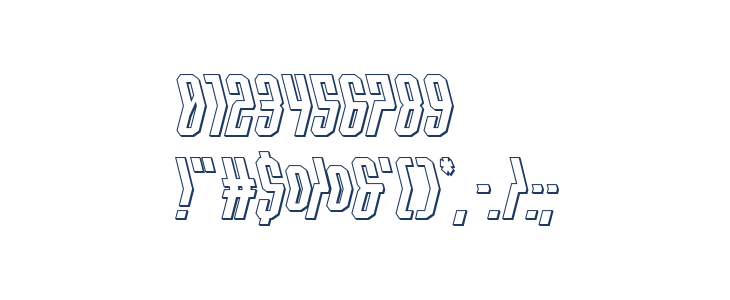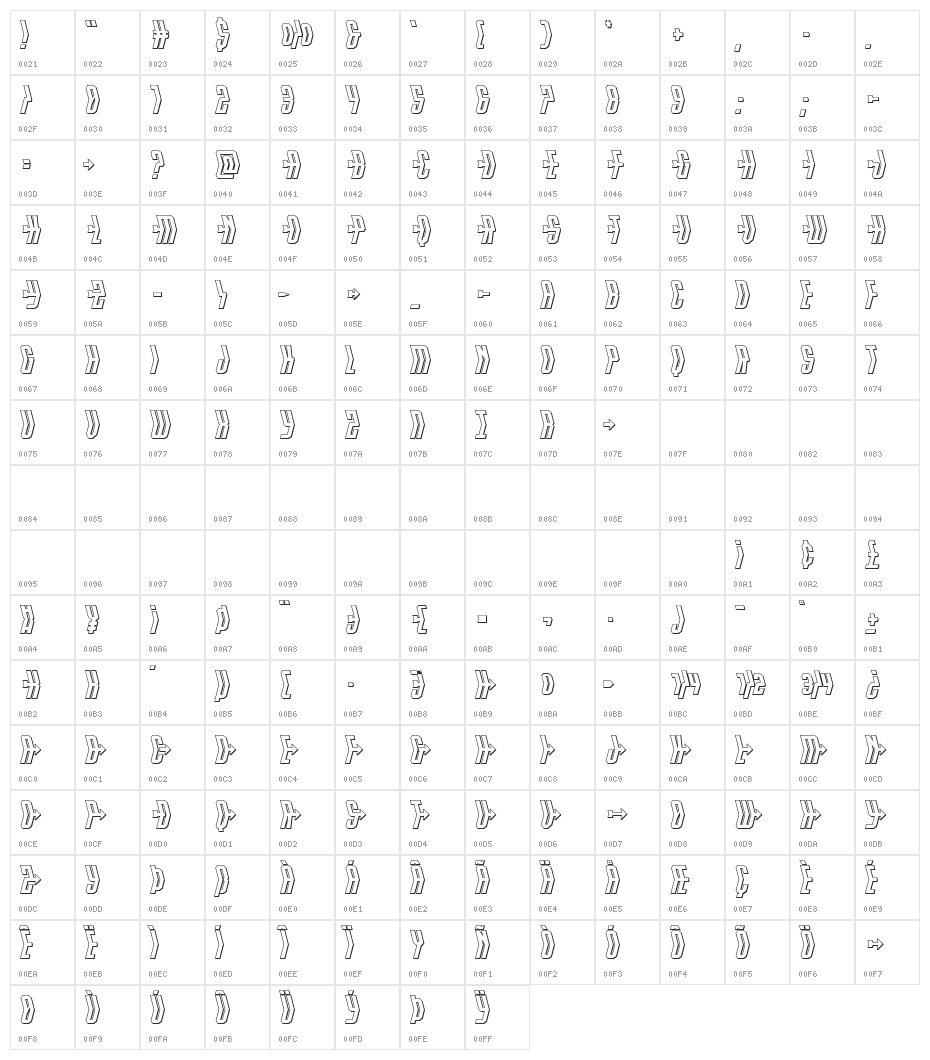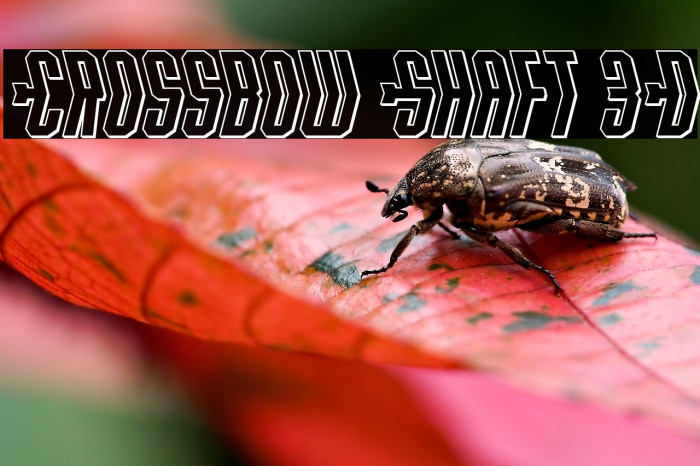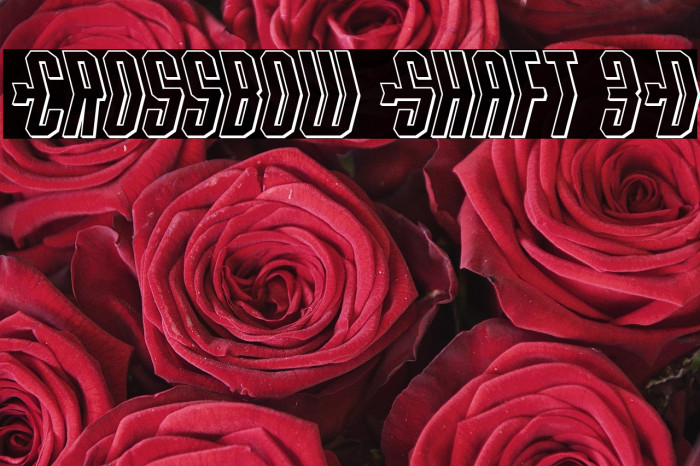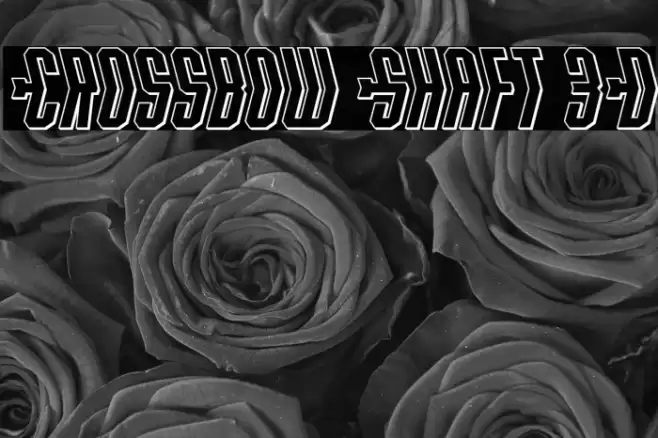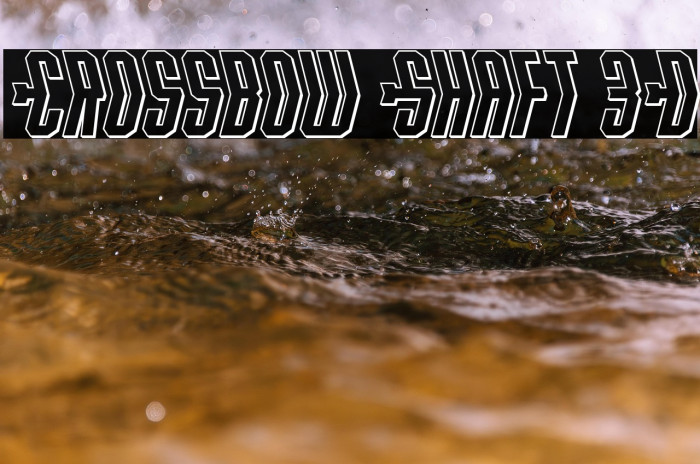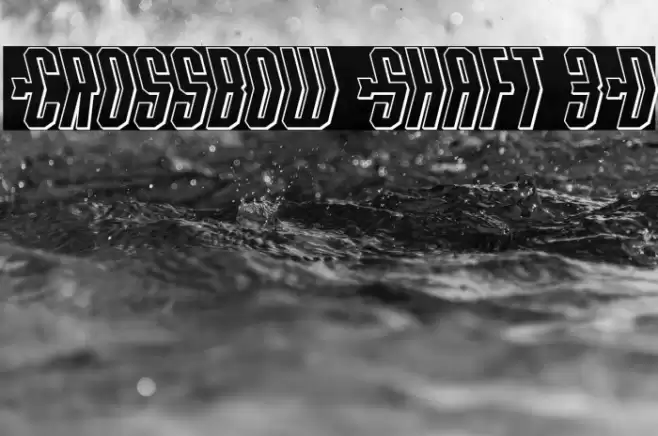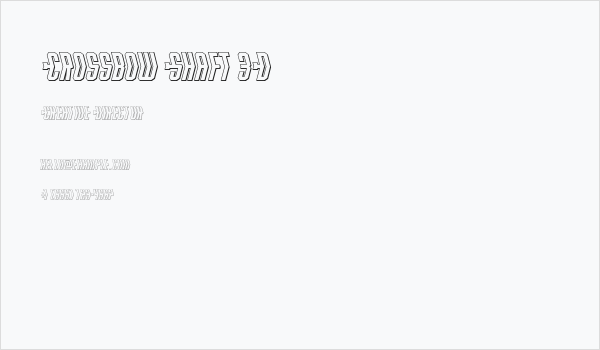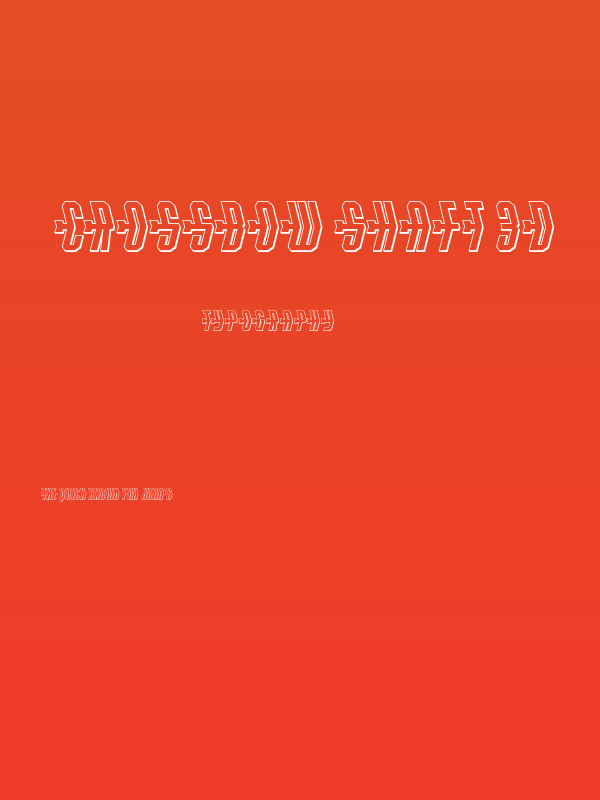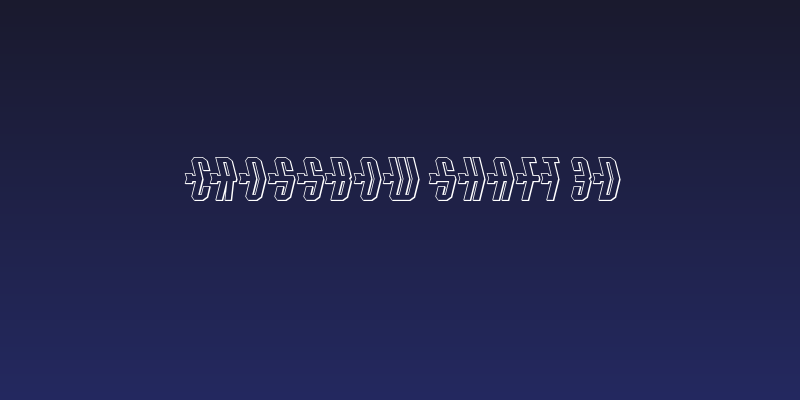
Crossbow Shaft 3D Font
Crossbow Shaft 3D Description
This font features a bold, three-dimensional design with a strong geometric structure. Each character is outlined, creating a shadow effect that gives depth and a sense of movement. The uppercase letters have a consistent height and width, while the lowercase letters maintain a similar style, ensuring uniformity across the text. The numbers and special characters follow the same design principles, making them easily recognizable and visually appealing. The font's unique style makes it stand out, with its sharp angles and clean lines, perfect for creating a dynamic and modern look.
| Proposed Projects | Ideal for video game titles, movie posters, branding for tech companies, or any project needing a futuristic and bold aesthetic. |